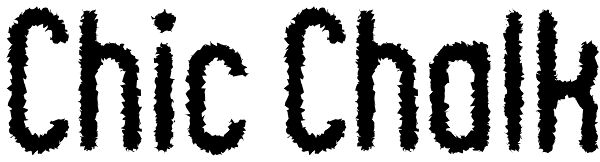
Chic Chalk
Kustomtype’s “Chick Chalk” font is a sans serif font family with a regular & oblique version. It contains all upper & lower cases. The “Chick Chalk” family is coordinated into letterforms, metrics, and weights to work better together. Why still...
Chic Chalk
Chic Chalk Italic